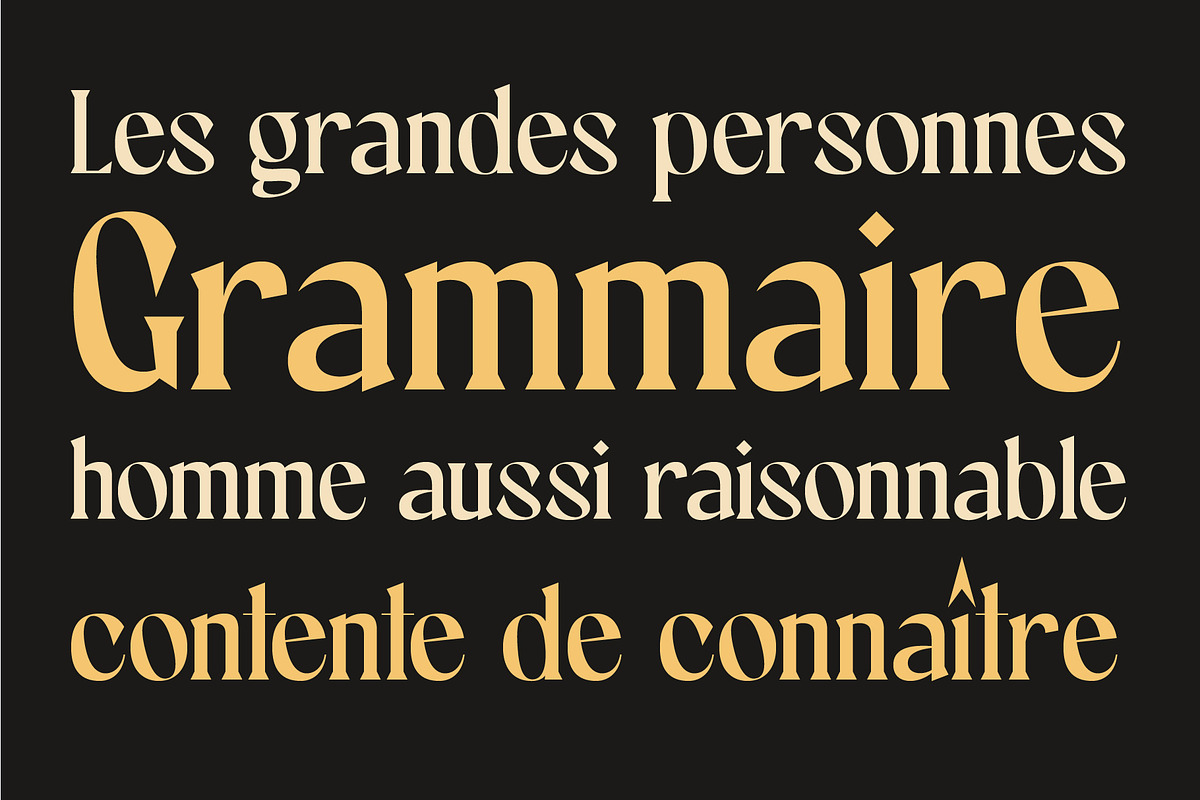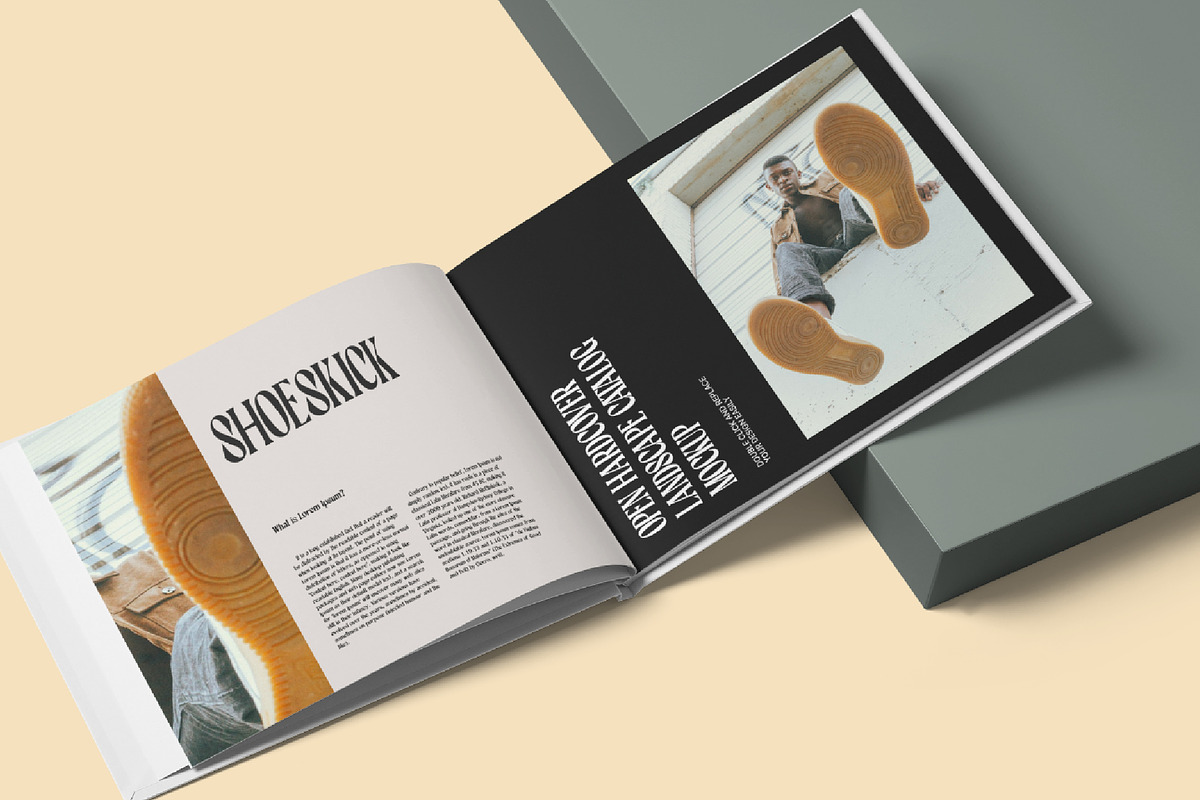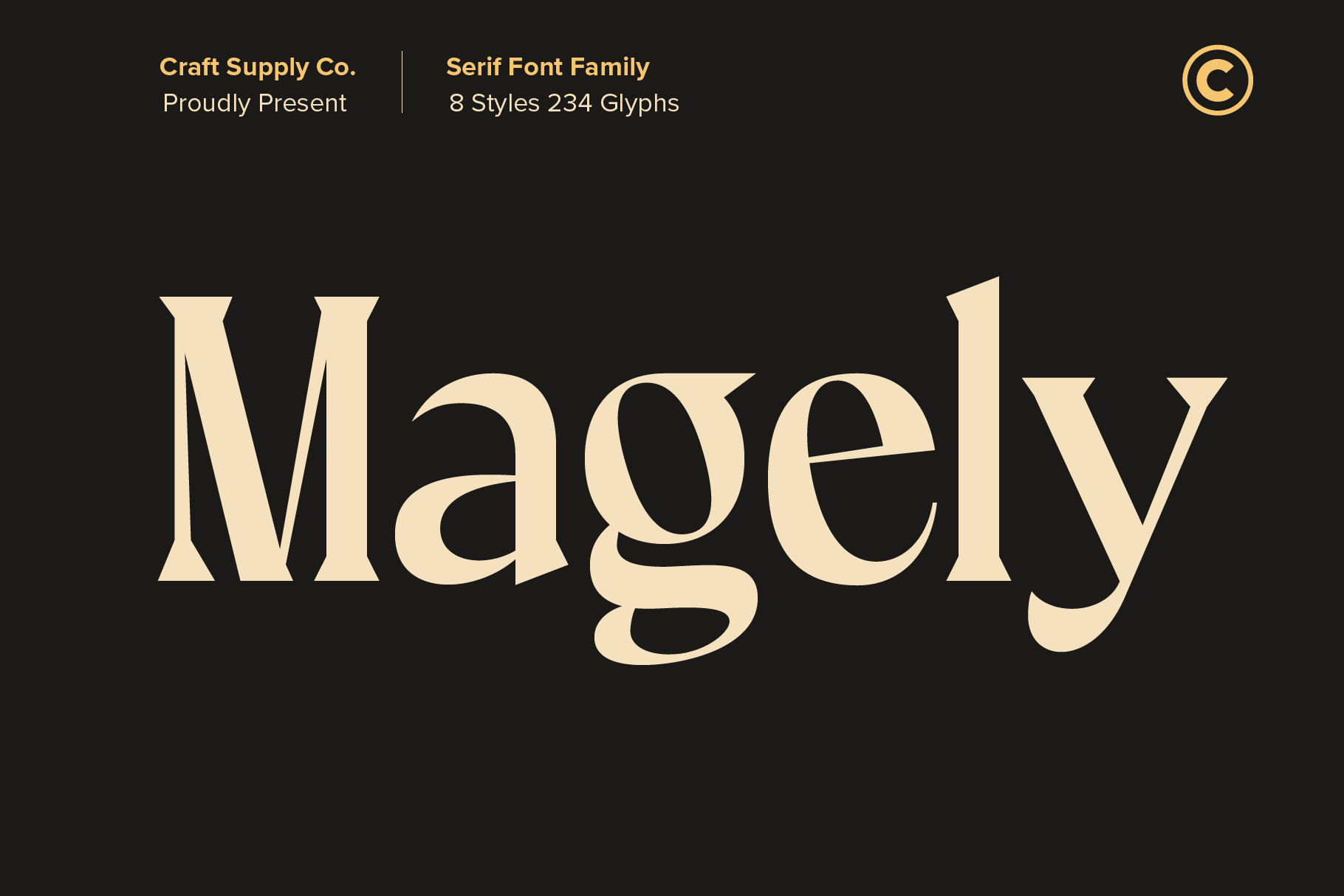
Magely - Stylish Serif Font Family
Magely is stylish serif font family, contain 8 style fonts. Magely is made for any type of display text, such as product packaging, t-shirt designs, book covers, posters and wedding invitations.
- Magely Regular
- Magely Semi Expanded
- Magely Expanded
- Magely Ultra Expanded
- Magely Semi Condensed
- Magely Condensed
- Magely Extra Condensed
- Magely Ultra Condensed